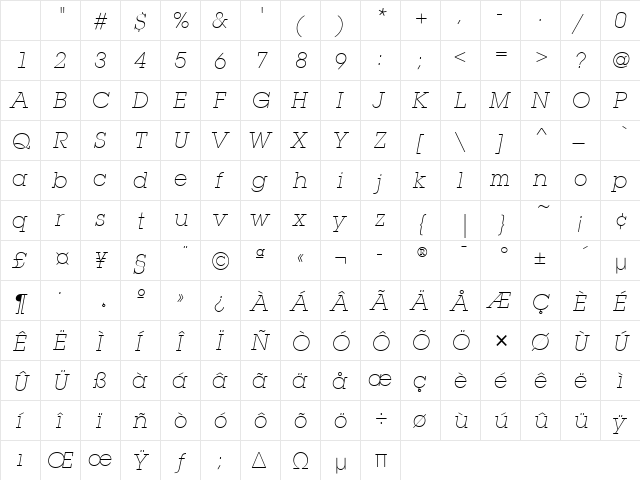
Complete LubalinGraphXLitITC Oblique glyph index. Displaying only characters natively supported by LubalinGraphXLitITC Oblique font.
LubalinGraphXLitITC is a composed and adaptable typeface that performs quietly and consistently across a wide range of design contexts. The slanted form adds forward momentum and visual energy.
Pro Tip: Use LubalinGraphXLitITC for emphasis, pull quotes, and subheadings where its slanted energy can add rhythm to the layout.